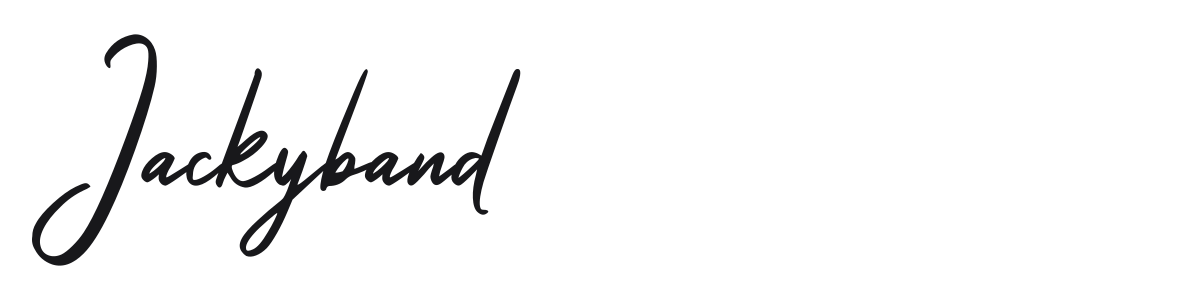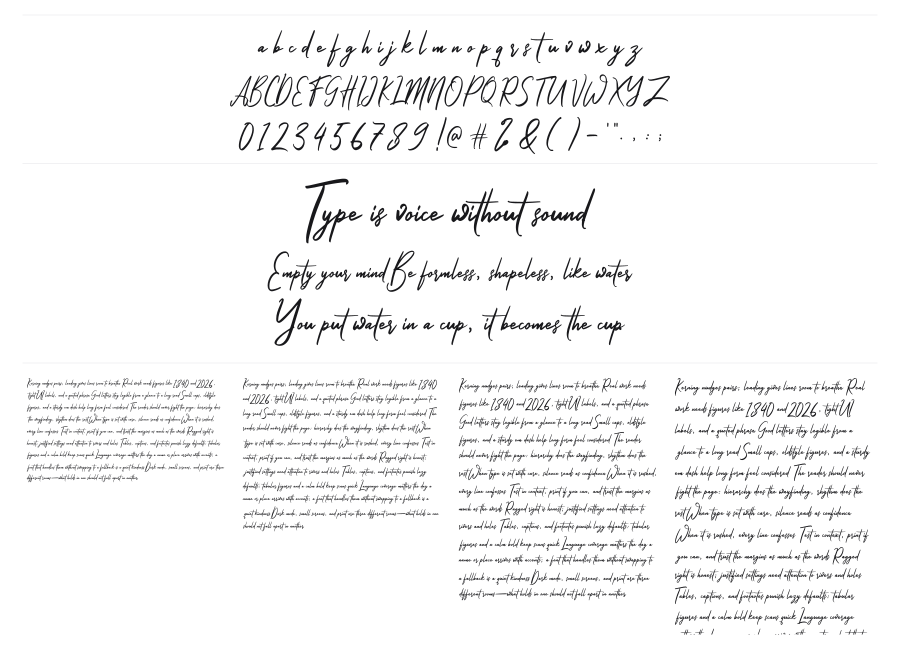
Jackyband
Jackyband is a casual handwritten script with flowing, connected strokes and a natural pen-lifted energy. The letters move across the baseline with relaxed rhythm, making it feel personal without being precious. It works well wherever you need something warm and approachable rather than formal.